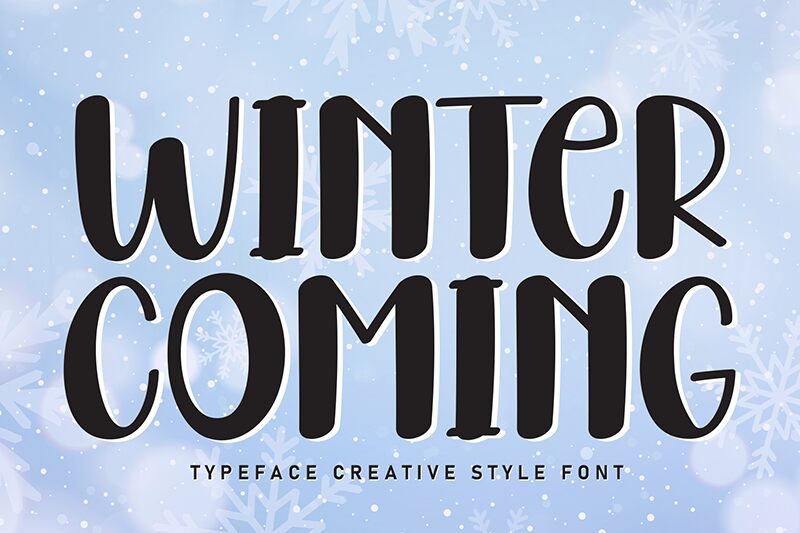
Winter Coming
Winter Coming font by Andi Moz impresses with the bold strokes of this free brush font which is thick, heavy, and dark. The italic type design delivers maximum visual interest that will attract any viewer immediately. Its letters are all vintage-like with oblong shapes that make them a little bit whimsical.
The font can be used in making t-shirt designs, signages, packaging labels, retro logos and posters. Typography-oriented graphic designer will easily see its applicability in crafting prints for book covers, album covers or even movie posters. Winter Coming’s decorative flair can bless a website or mobile app interface if used right as well too while being particularly suitable for headline text in such designs!